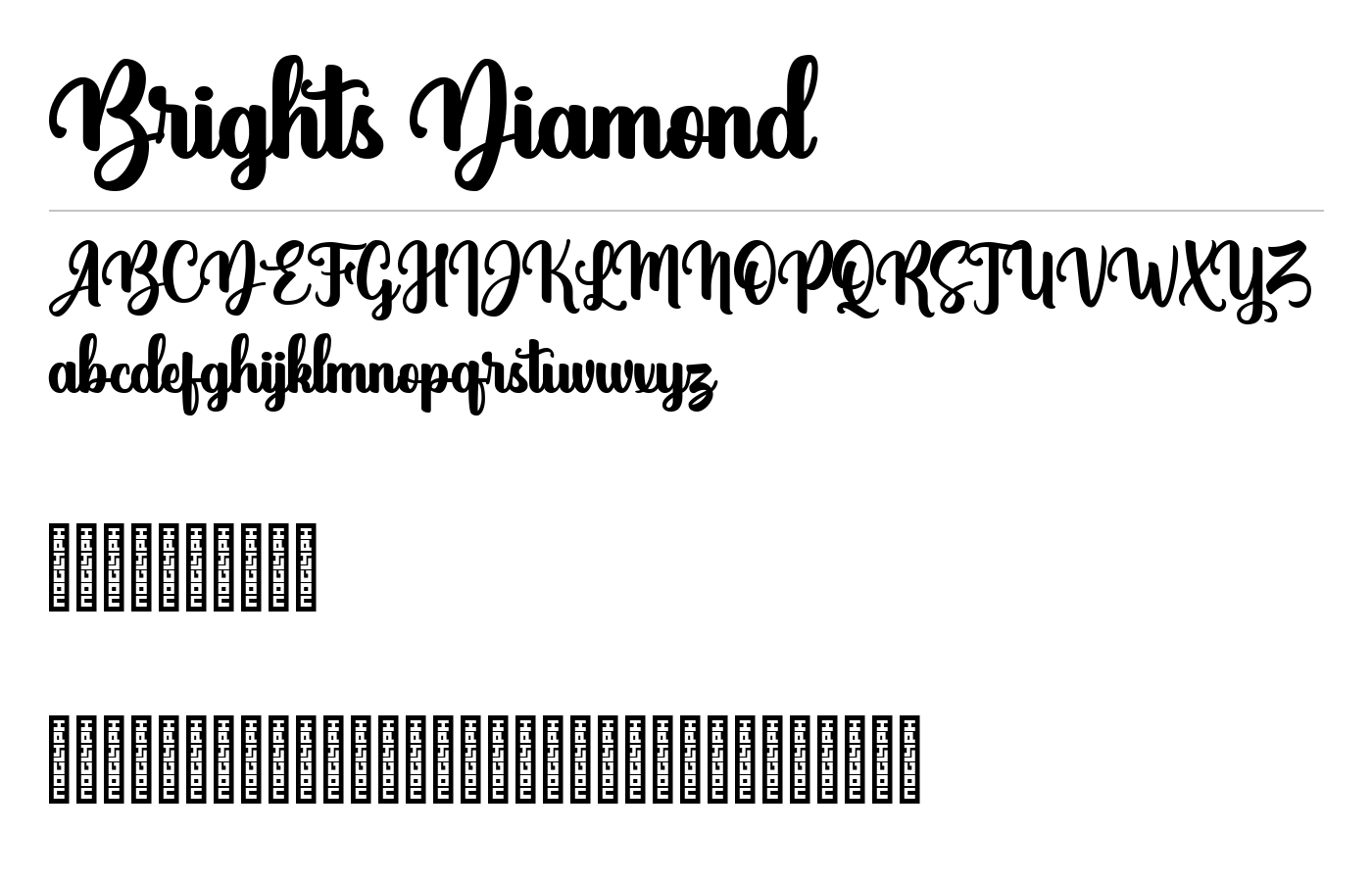
Brights Diamond is a lively script font featuring smooth, flowing strokes with a medium weight and a slightly condensed width. Its playful, handwritten style with rounded terminals and distinctive swashes gives it a friendly, elegant feel, perfect for branding, invitations, and packaging that seek a warm, approachable touch. This font shines in headlines and decorative uses where its unique charm can stand out and add personality.
Brights Diamond Font
About Brights Diamond Font